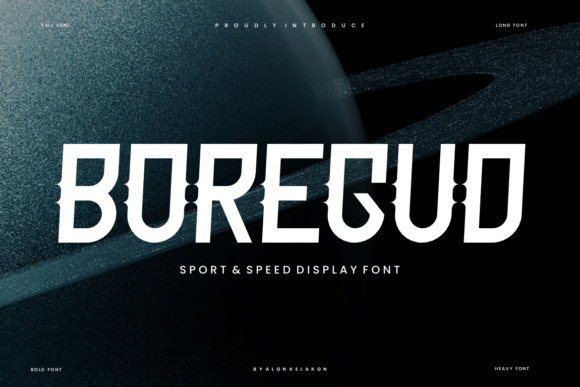
Boregud Font: A Quirky and Versatile Display Font
In the world of typography, fonts play a crucial role in conveying messages, evoking emotions, and creating visual identities. Among the numerous fonts available, Boregud stands out as a unique and interesting display font that has gained attention for its quirky and adaptable nature. In this article, we’ll delve into the characteristics, uses, and benefits of the Boregud font, exploring its potential to elevate your designs and add a touch of personality to your projects.
What is Boregud Font?
Boregud is a display font that boasts a distinctive and eye-catching appearance. Its quirky design makes it an excellent choice for creative projects, such as posters, flyers, logos, and social media graphics. The font’s unique features, including irregular shapes and unconventional letterforms, set it apart from more traditional fonts.
Key Features of Boregud Font
- Quirky and Playful Design: Boregud’s irregular shapes and unconventional letterforms give it a playful and whimsical feel, making it perfect for creative projects.
- Versatility: Despite its unique design, Boregud is incredibly versatile and can be used in a wide range of contexts, from digital media to print materials.
- High Readability: Despite its quirky nature, Boregud remains highly readable, even at smaller font sizes.
- Extensive Character Set: Boregud comes with an extensive character set, including uppercase and lowercase letters, numbers, and punctuation marks.
Uses of Boregud Font
Boregud’s versatility makes it suitable for various design projects, including:
- Posters and Flyers: Boregud’s bold and quirky design makes it perfect for creating eye-catching posters and flyers.
- Logos and Branding: The font’s unique features make it an excellent choice for creating distinctive logos and brand identities.
- Social Media Graphics: Boregud’s playful design makes it ideal for creating engaging social media graphics, such as Facebook posts, Twitter headers, and Instagram stories.
- Packaging Design: The font’s quirky nature makes it suitable for packaging design, adding a touch of personality to product labels and packaging materials.
Benefits of Using Boregud Font
Using Boregud font offers several benefits, including:
- Unique Visual Identity: Boregud’s quirky design helps create a unique visual identity for your brand or project.
- Attention-Grabbing: The font’s bold and eye-catching design grabs attention and encourages engagement.
- Flexibility: Boregud’s versatility makes it suitable for various design projects and contexts.
- Easy to Read: Despite its quirky nature, Boregud remains highly readable, ensuring that your message is conveyed effectively.
Tips for Using Boregud Font Effectively
To get the most out of Boregud font, consider the following tips:
- Use it Sparingly: Boregud’s bold design can be overwhelming if overused. Use it sparingly to create visual interest and emphasis.
- Pair it with Other Fonts: Combine Boregud with other fonts to create visual contrast and add depth to your design.
- Experiment with Colors: Boregud’s quirky design lends itself well to bold and bright colors. Experiment with different color schemes to find the perfect combination.
- Consider the Context: Ensure that Boregud’s quirky design aligns with the tone and personality of your project or brand.
Boregud font is a unique and interesting display font that offers a quirky and playful design. Its versatility, high readability, and extensive character set make it suitable for various design projects, from posters and flyers to logos and social media graphics. By using Boregud font effectively, you can create a unique visual identity, grab attention, and add a touch of personality to your designs.
FAQs About Boregud Font
- What is Boregud font? Boregud is a unique and interesting display font with a quirky and playful design.
- Is Boregud font suitable for body text? While Boregud font is highly readable, it’s best suited for display purposes, such as headings and titles.